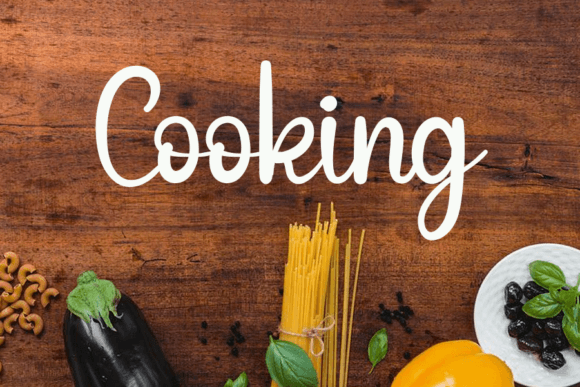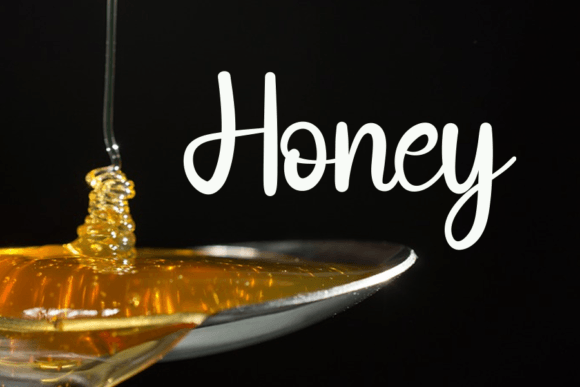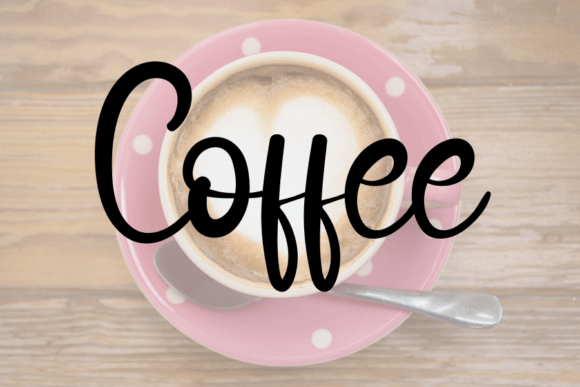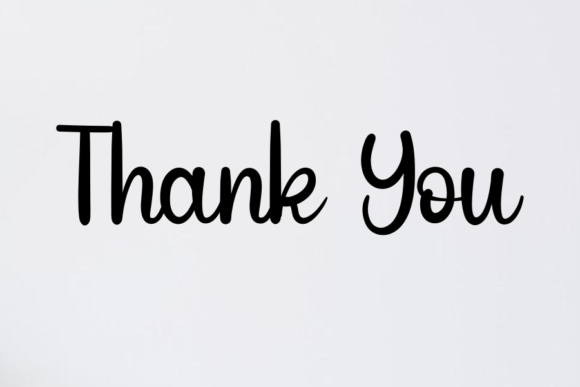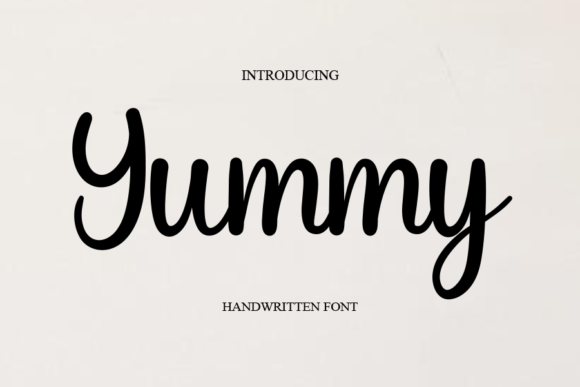
Yummy Font
About Yummy Font
Yummy is not just a font; it’s a stylish and incredibly elegant script font that brings a touch of sophistication to a variety of design projects. Whether gracing wedding invitations, thank-you cards, quotes, greeting cards, logos, or business cards, Yummy adds a handwritten touch that enhances the visual appeal of every creation.
The style of Yummy is a key feature that sets it apart. Its elegance is evident in the fluidity of its script, making it a visually stunning choice for projects that demand a refined and sophisticated aesthetic. This script font brings a sense of grace and charm to your text, making it suitable for a range of formal and celebratory occasions.
Wedding invitations, in particular, benefit from the stylish and elegant nature of Yummy. The font adds a romantic and timeless quality, creating a visually appealing presentation for this special occasion. Its ability to convey both luxury and warmth makes it a versatile choice for various design contexts.
Yummy is not limited to formal occasions; it’s equally fitting for thank-you cards and greeting cards. Its handwritten touch adds a personal and heartfelt element, enhancing the emotional impact of your messages. The font becomes a visual expression of gratitude and warmth.
In the realm of branding, Yummy stands out as a font that can elevate the overall look of logos and business cards. Its stylish script contributes to a memorable and distinctive brand identity, leaving a lasting impression on clients and customers.
Quotes, with their focus on impactful words, gain an extra layer of visual appeal with Yummy. The elegant script enhances the message, creating a harmonious blend of style and substance. This makes the font a valuable asset for social media posts, posters, and other quote-based designs.
Yummy is more than just a typeface; it’s a design element that adds a handwritten touch of elegance to your creative projects. Its versatility, coupled with its stylish script, ensures that it complements a wide range of designs, creating visually stunning and sophisticated outcomes.